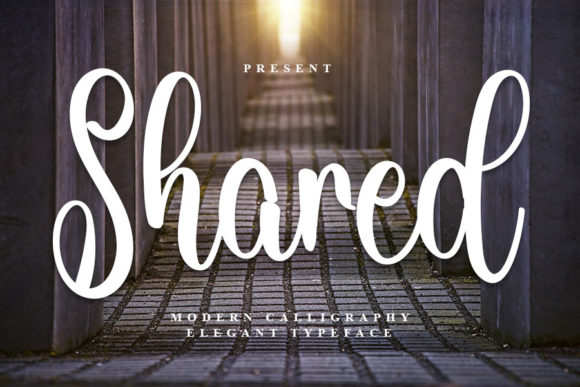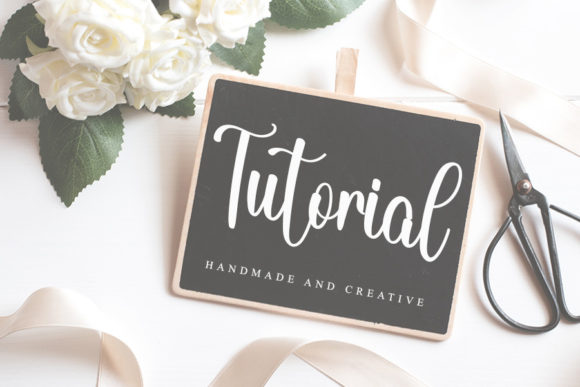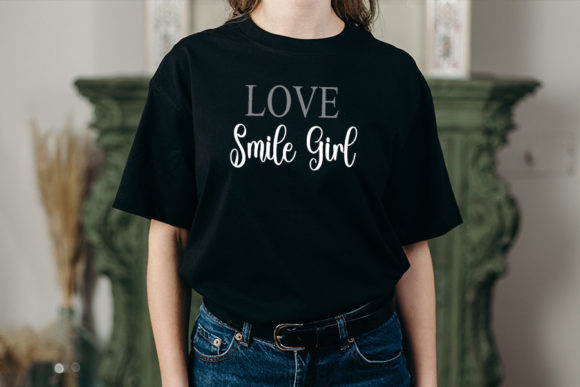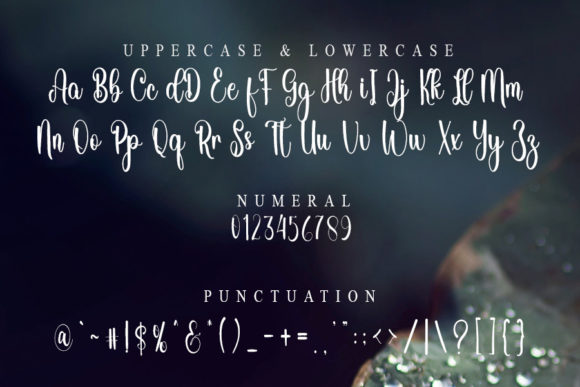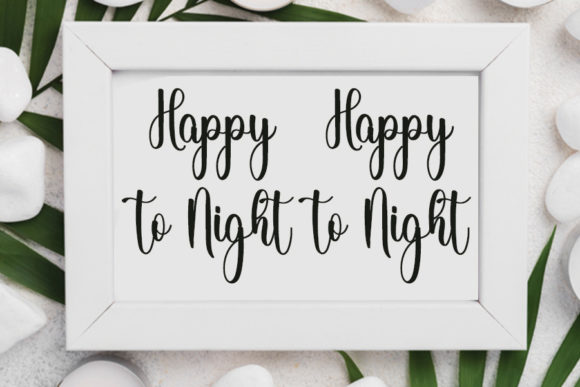
About Shared Font
Shared is a stylish handwritten font with a contemporary atmosphere and impeccable form, inspired by a timeless classic calligraphy. Balanced and varied, this font was designed to enhance the beauty of your projects.